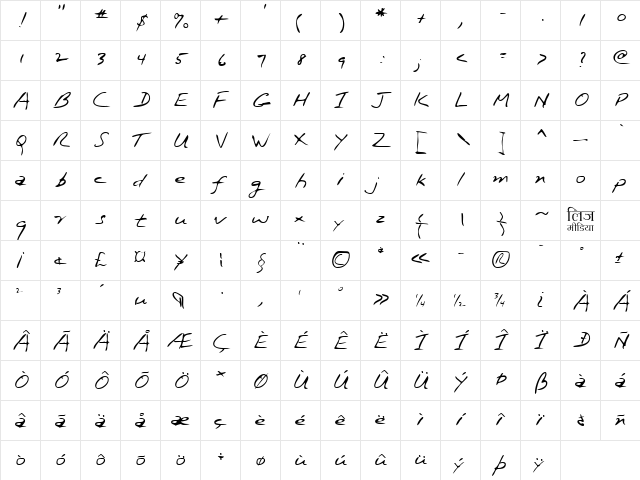
LEHN162 Regular Font Preview
LEHN162 Regular
LEHN162 Regular Font Details
Design Context for LEHN162 Typeface
LEHN162 is a composed and adaptable typeface that performs quietly and consistently across a wide range of design contexts.